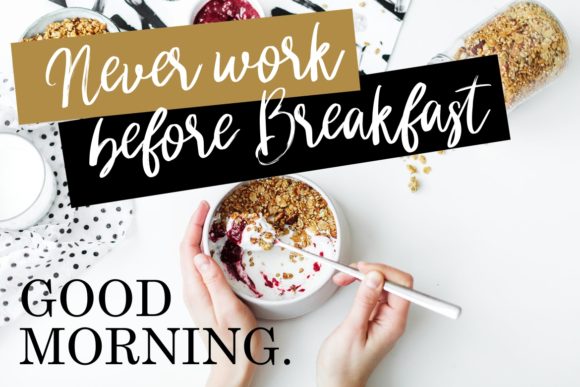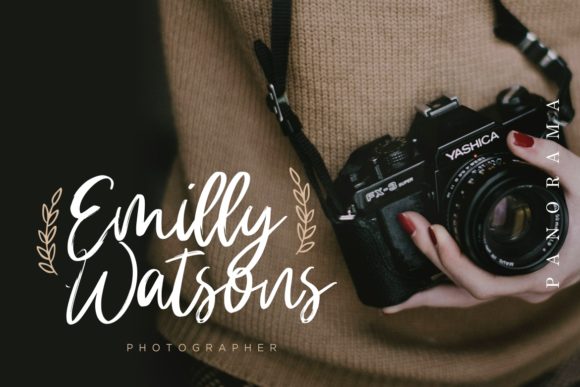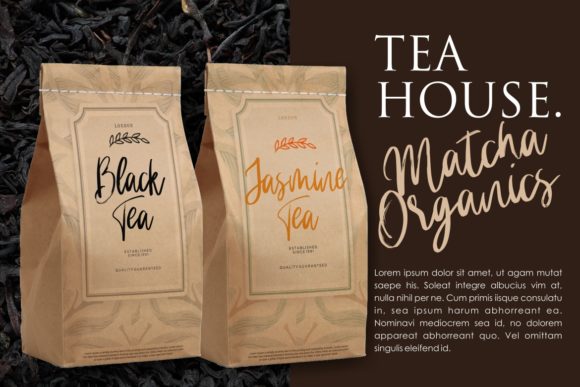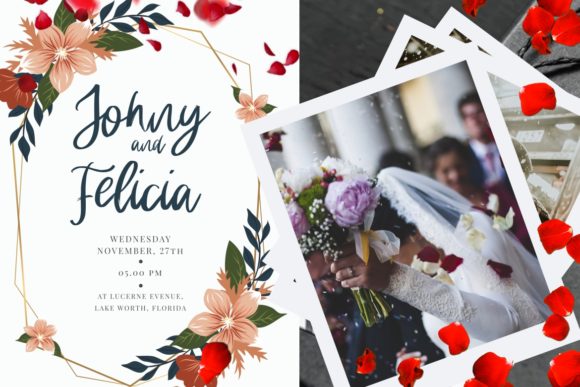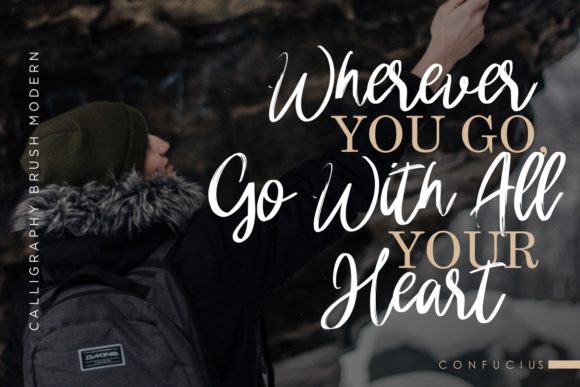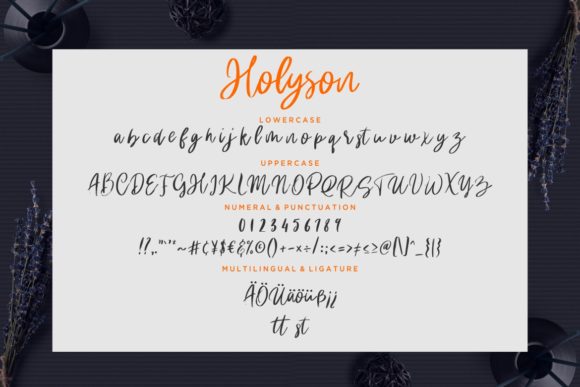
Introduction to Holyson Font
Have you ever stumbled upon a font that makes you feel like you’re scribbling in a notebook, but still looks polished and high quality? That’s exactly what the Holyson Font does – it captures the essence of handwritten notes in a digital format, making it a valuable design resource for any creative project.
Whether you’re working on a branding project, creating social media graphics, or designing a blog post, the Holyson Font is sure to add a personal touch to your work. Its unique style is not only fun and cheerful, but also versatile enough to be used in a variety of contexts. And the best part? You can download it for free, with a transparent background that makes it easy to use in any design scenario.
With its free download and high quality design, the Holyson Font is a must-have for any designer looking to add a little personality to their work.
Key Features of Holyson Font
- High-quality design: The Holyson Font is a carefully crafted, professional-looking font ideal for various creative projects.
- Transparent background: The Holyson Font features a transparent background, allowing for seamless integration into various design elements.
- Resolution-independent: The Holyson Font is designed to be resolution-independent, ensuring it looks great at any resolution or size.
- Perfect for digital design: With its modern and sleek design, the Holyson Font is perfect for digital design projects, including website headers, social media graphics, and more.
Honest Review: Holyson Font
I recently stumbled upon the Holyson Font, a free download that caught my eye for its unique aesthetic. As a designer, I’m always on the lookout for high-quality design resources to elevate my creative projects.
The Holyson Font boasts a modern and elegant design, making it perfect for a variety of applications, from digital products to print materials. The font is also available with a transparent background, giving users the flexibility to customize their designs as needed.
- Unique and modern design aesthetic
- Available with transparent background for customization
- Limited font styles and variations
Overall, the Holyson Font is a solid addition to any designer’s toolkit. While it may have its limitations, its unique design and flexibility make it a valuable resource for creative projects. I’d recommend it for personal or small-scale commercial use, but be sure to review the licensing terms before using it for larger projects.
Getting the Most Out of Holyson Font
To get the most out of the Holyson Font, experiment with different font sizes, colors, and styles. You can also combine the Holyson Font with other design elements to create unique and eye-catching designs.
The Holyson Font is commonly used for designing logos, graphics, and typography-based projects. It’s also perfect for creating social media graphics, posters, and flyers.
Alternatives to Holyson Font
Great Vibes is a beautiful, handwritten font perfect for creative projects that require a touch of elegance and sophistication. It’s ideal for designing invitations, quotes, and other typography-based elements. Great Vibes Font is available for free download and offers a transparent background, making it easy to customize.
Compared to Holyson Font, Great Vibes has a more fluid and cursive feel, making it suitable for projects that require a personal touch. While Holyson Font is more geometric and modern, Great Vibes is more vintage and whimsical.